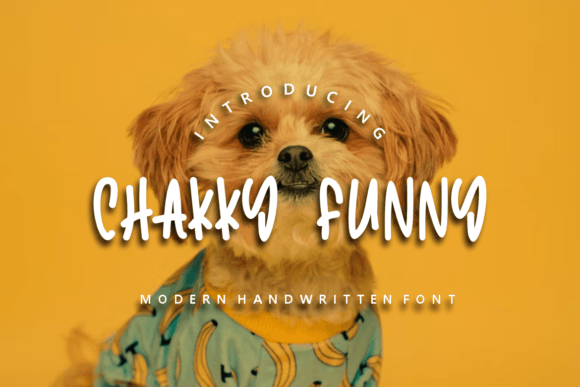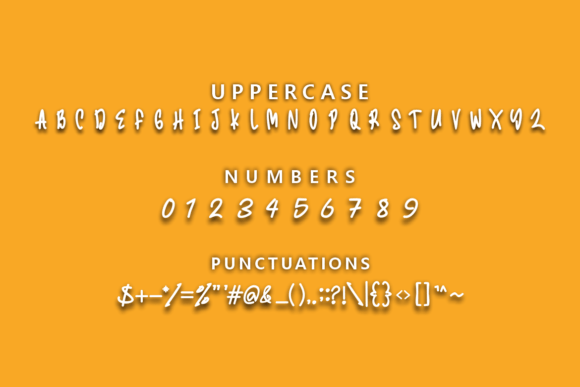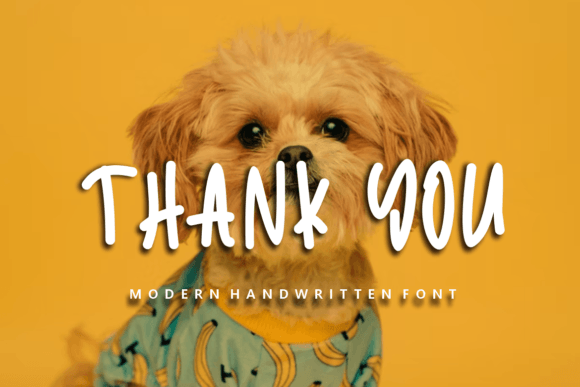
Introducing Chakky Funny Font: Add a Joyful Touch to Your Designs
Are you tired of using the same old fonts in your designs? Do you want to add a playful and funky touch to your creative projects? Look no further than Chakky Funny Font! This delightful handwritten font is sure to bring a smile to your face and make your designs stand out from the crowd.
What is Chakky Funny Font?
Chakky Funny Font is a playful and funky handwritten font that is perfect for designers and crafters who want to add a personal touch to their work. This font is designed to be fun, energetic, and engaging, making it ideal for a wide range of creative projects, from social media graphics and posters to invitations and crafts.
Key Features of Chakky Funny Font
- Playful and Funky: Chakky Funny Font is a truly unique font that adds a playful and funky touch to any design.
- Handwritten: This font is carefully crafted to mimic the look and feel of handwritten text, giving your designs a personal and human touch.
- Easy to Read: Despite its playful nature, Chakky Funny Font is easy to read and understand, making it perfect for use in a wide range of creative projects.
- Versatile: This font can be used in a variety of contexts, from digital designs to print materials.
How to Use Chakky Funny Font in Your Designs
Adding Chakky Funny Font to your designs is easy! Here are a few tips to get you started:
- Use it for Headings: Chakky Funny Font is perfect for use in headings and titles, where its playful and funky nature can really shine.
- Add it to Social Media Graphics: Use Chakky Funny Font to add a personal touch to your social media graphics, such as Facebook posts, Instagram stories, and Twitter headers.
- Make it a Part of Your Branding: If you’re looking for a way to add some personality to your brand, Chakky Funny Font could be the perfect choice.
- Use it in Crafts: Chakky Funny Font is also perfect for use in crafts, such as card making, scrapbooking, and DIY projects.
Benefits of Using Chakky Funny Font
So why should you choose Chakky Funny Font for your designs? Here are just a few benefits:
- Stand Out from the Crowd: Chakky Funny Font is a truly unique font that will help your designs stand out from the crowd.
- Add a Personal Touch: This font adds a personal and human touch to your designs, making them more relatable and engaging.
- Increase Engagement: The playful and funky nature of Chakky Funny Font is sure to grab attention and increase engagement.
- Easy to Use: This font is easy to use and can be easily integrated into a wide range of creative projects.
In conclusion, Chakky Funny Font is a playful and funky handwritten font that is perfect for designers and crafters who want to add a joyful touch to their creative projects. With its unique and engaging design, this font is sure to make your designs stand out from the crowd. So why not give it a try and see the difference it can make?